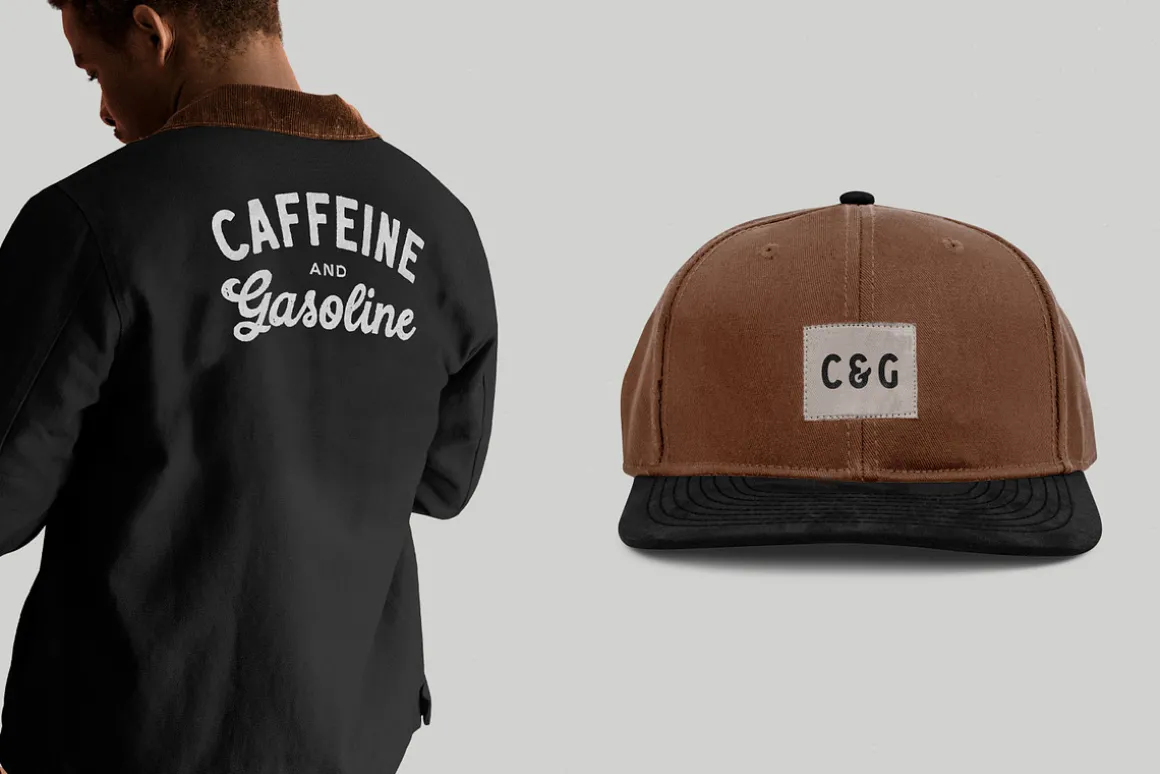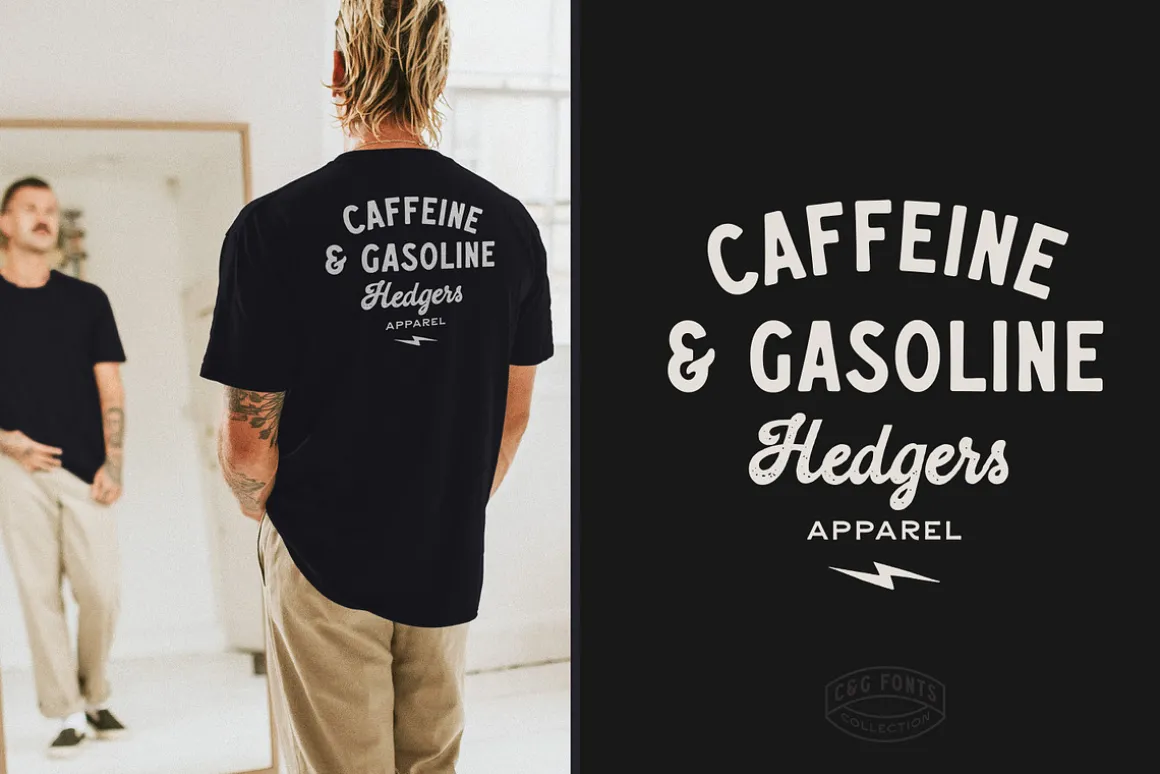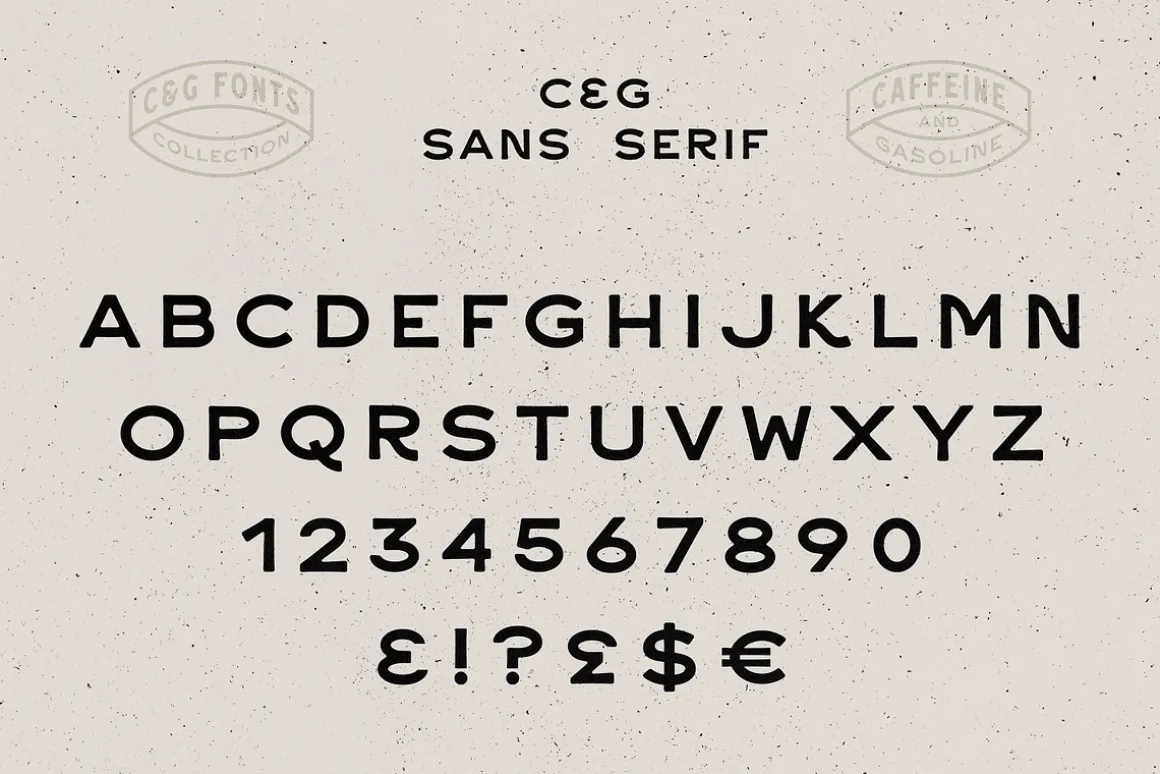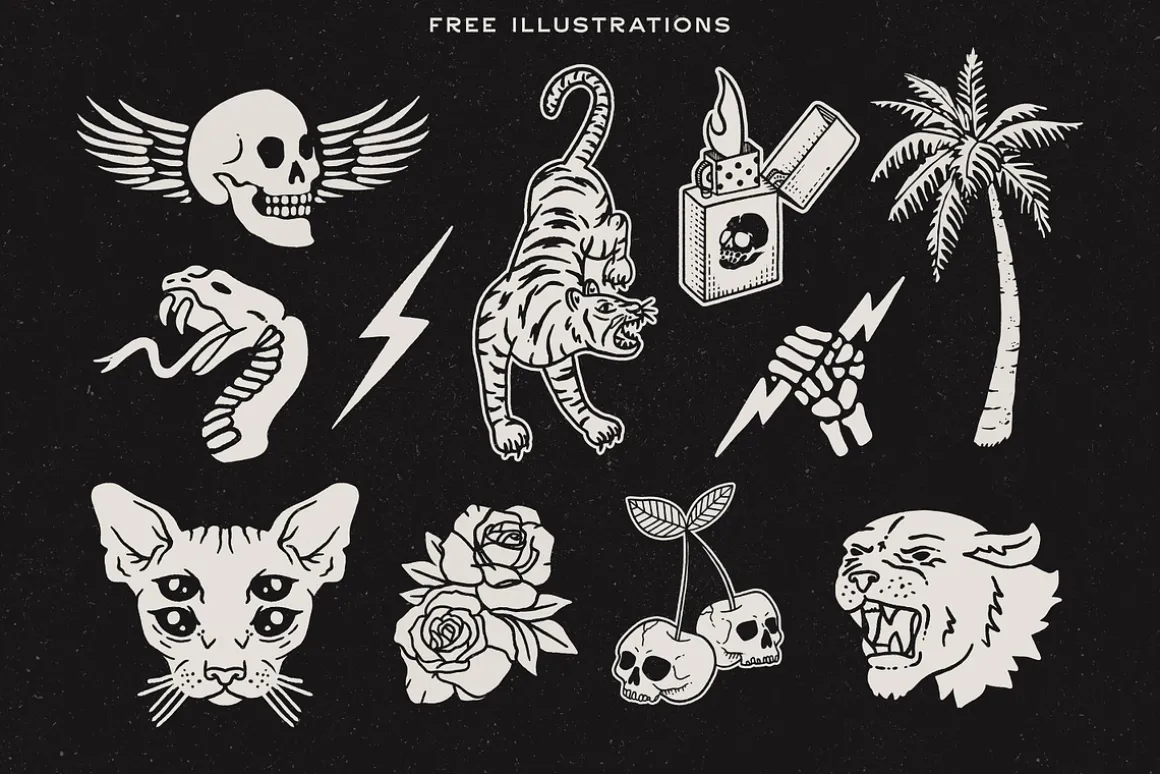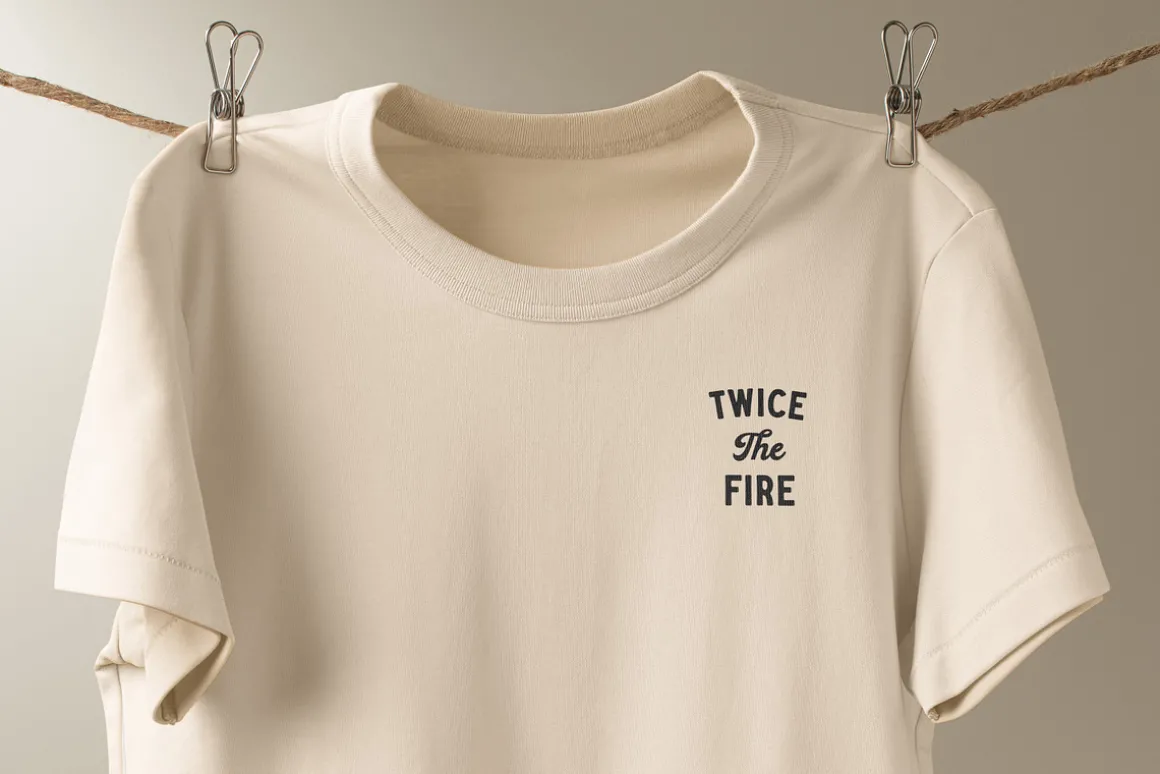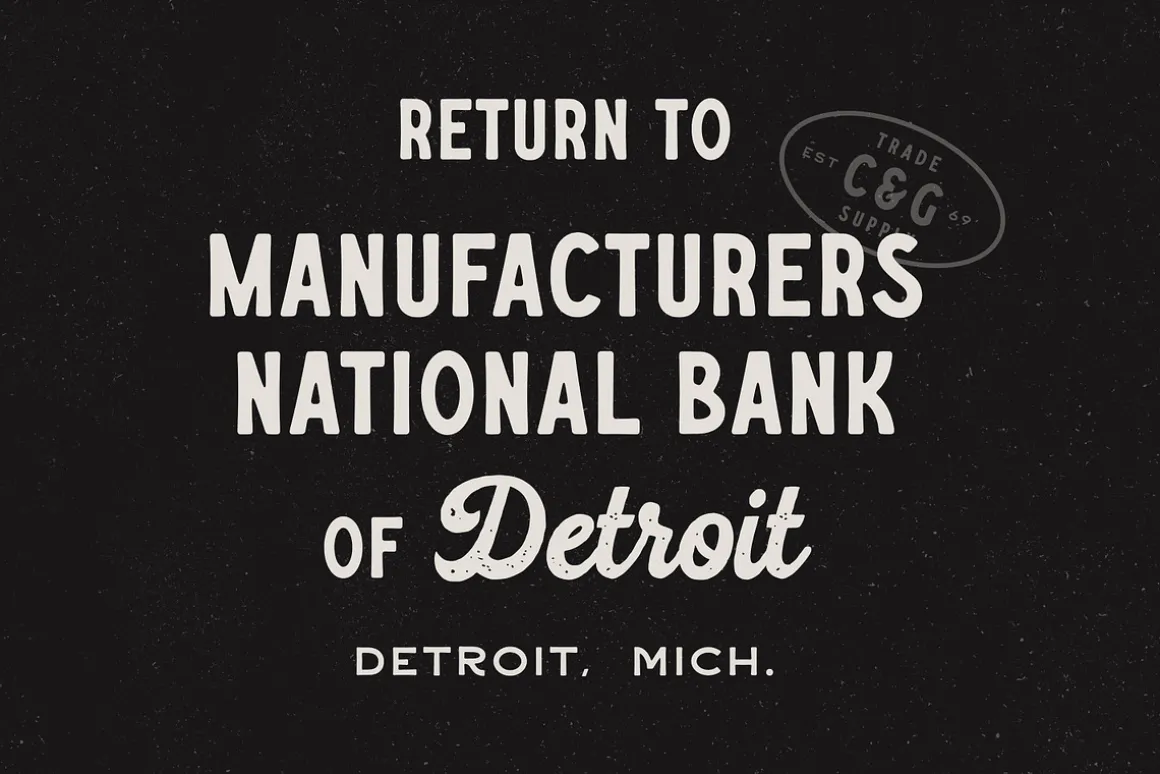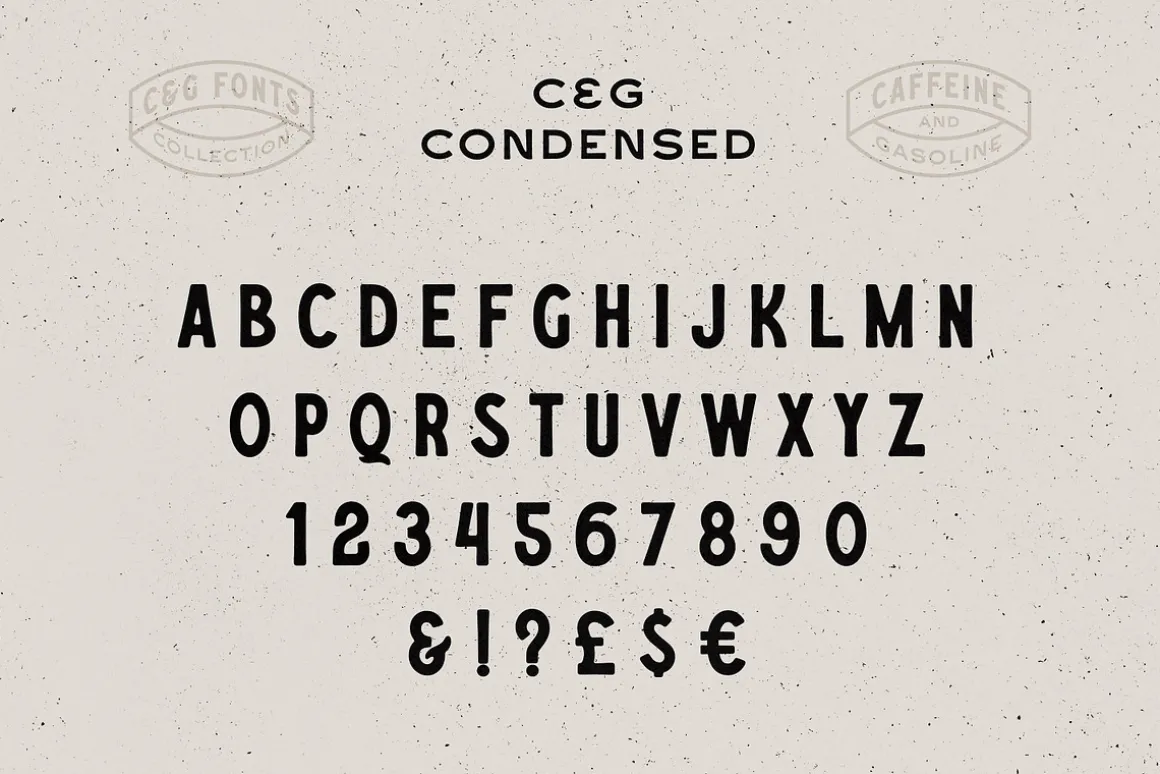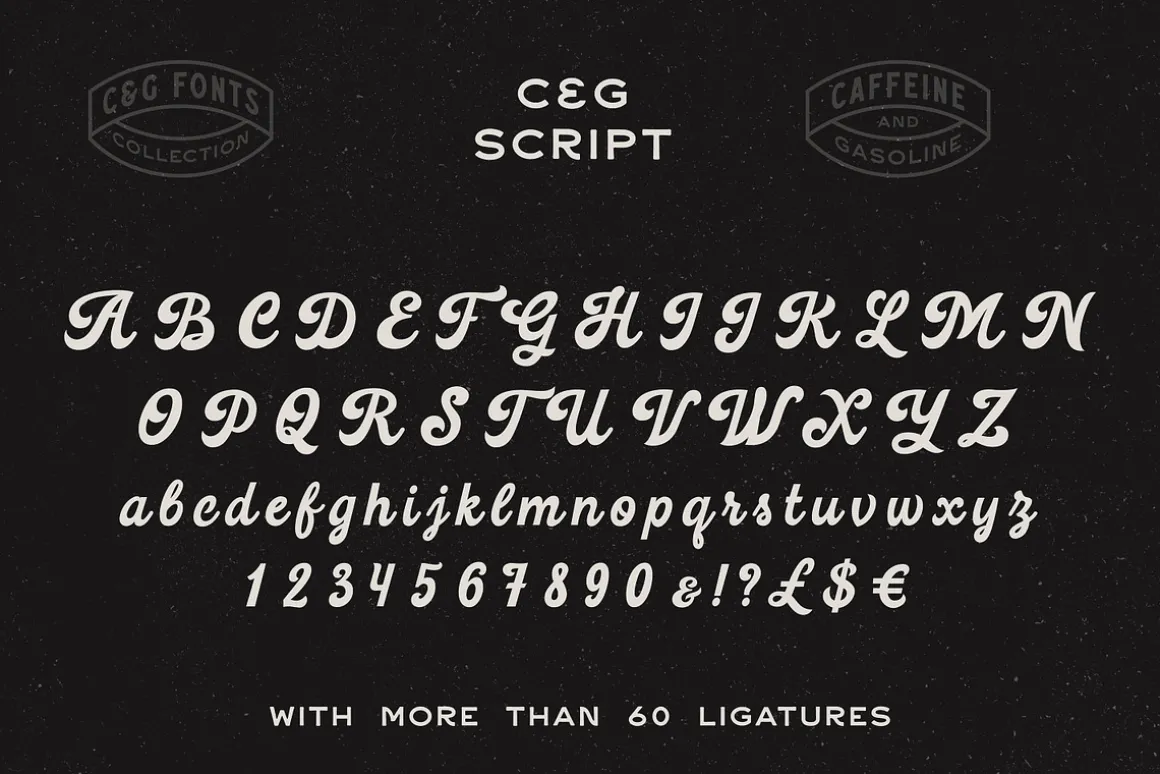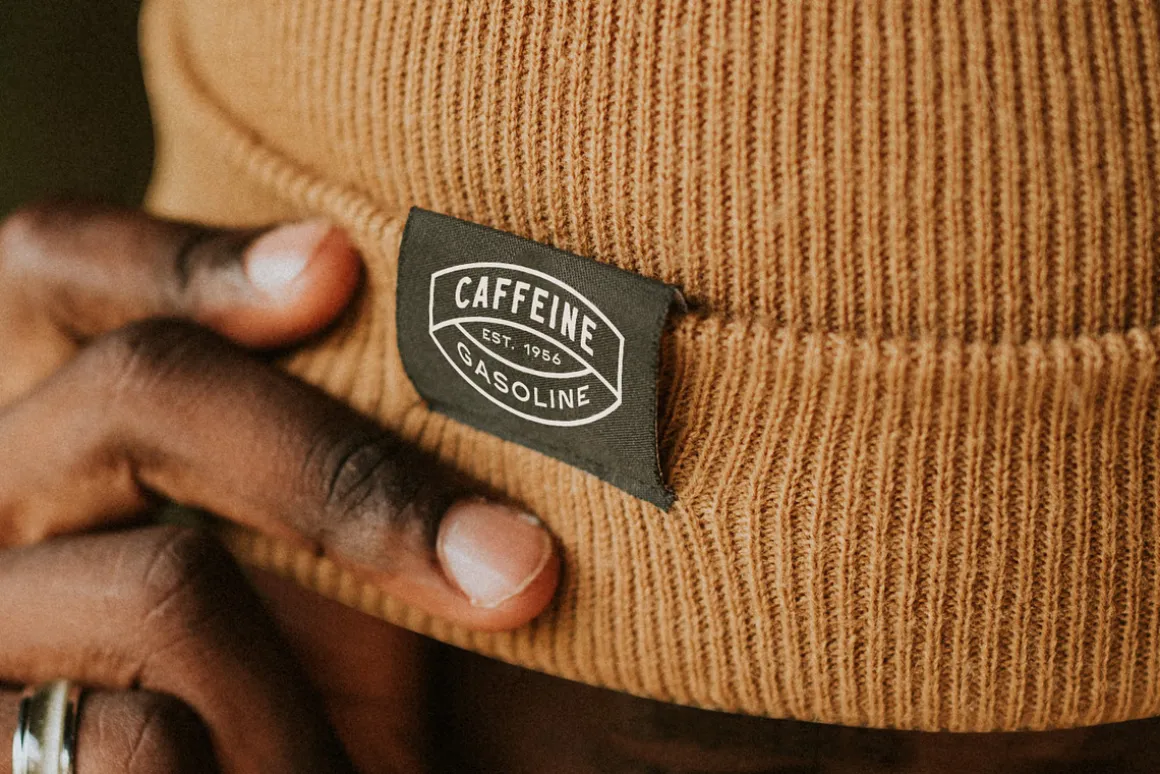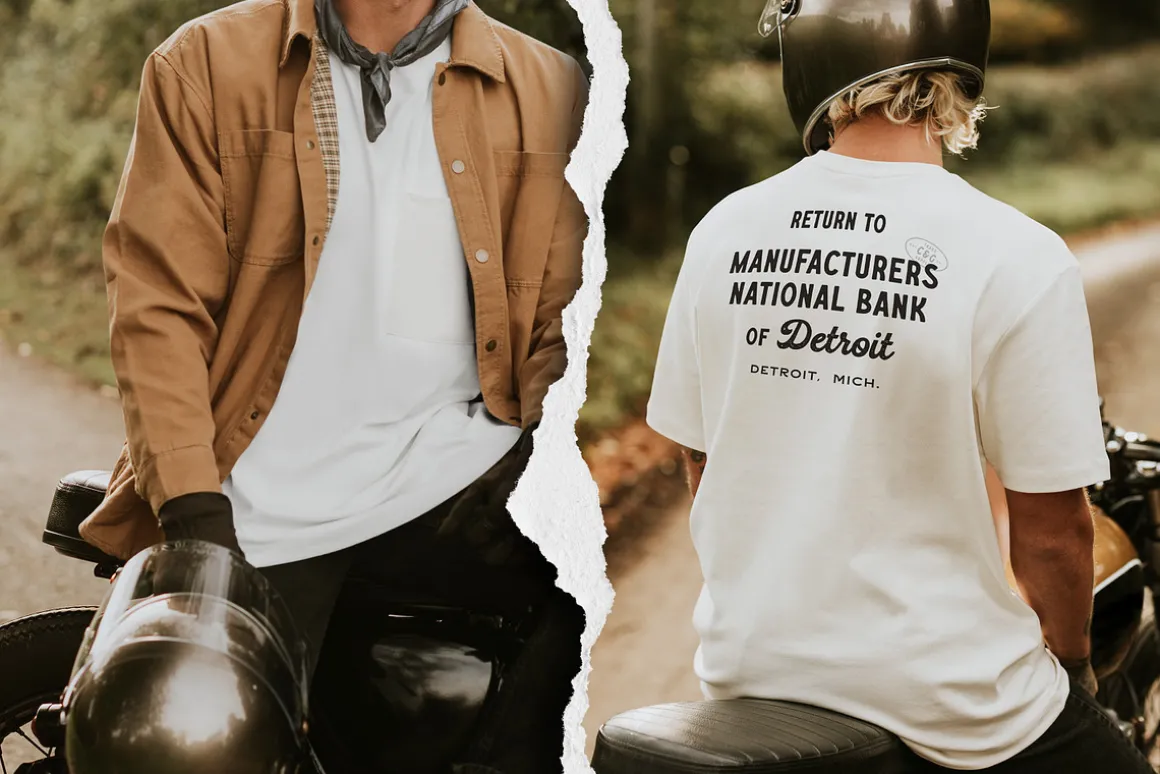
The “Caffeine & Gasoline Fonts + Extras” bundle is a must-have for any designer looking to add a touch of vintage style to their projects. The bundle includes a trio of vintage inspired fonts – an all caps Sans Serif, an all caps Condensed, and a hand-made Script font, with Regular & Aged versions, and over 60 ligatures.
This bundle is perfect for creating outstanding apparel designs, prints, social media content, product labels, and much more. To make the bundle even more valuable, it also includes 10 free premade logo templates and 10 hand-made illustrations in AI & Isolated PNG, ready to be used in your next design project.